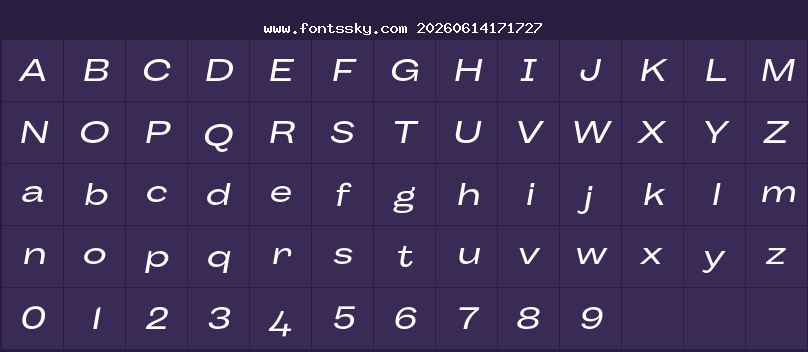
• Font Name: Body Grotesque Large
• Font ID: StudioKmzero&Zetafonts: BodyGrotesk Italic: 2018
• Full Font Name: Body Grotesque Large Italic
• PostScript Name: BodyGrotesqueLarge-Italic
• Designer: Cosimo Lorenzo Pancini
• Manufacturer: Studio Kmzero & Zetafonts
About Body Grotesque Large.otf
Body Grotesque Large.otf is a modern, elegant sans-serif font designed for ultimate readability and visual harmony. Perfect for branding, headlines, web design, and print materials.